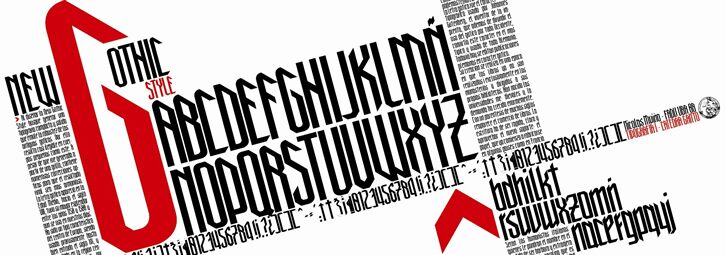
New Gothic Style, designed by Nicolas Muino of Estudio Lambda, is a free modern blackletter font built from tall, sharply cut forms. Its narrow letters combine rigid vertical strokes with sweeping diagonal joins and pointed notches. The silhouette is stark and architectural.
Its contemporary Gothic character makes it especially apt for music artwork and dark fashion branding. The repeated blade-like angles also suit event posters, where the lettering can echo stage sets, metalwork, or angular illustration. For publishing and game graphics, it offers a convincing title style for subjects involving fantasy, folklore, or severe futuristic worlds.
Final Typography Project I, GAITTO, FADU UBA, 2008
Nicolás Muiño, Estudio Lambda
New Gothic Style